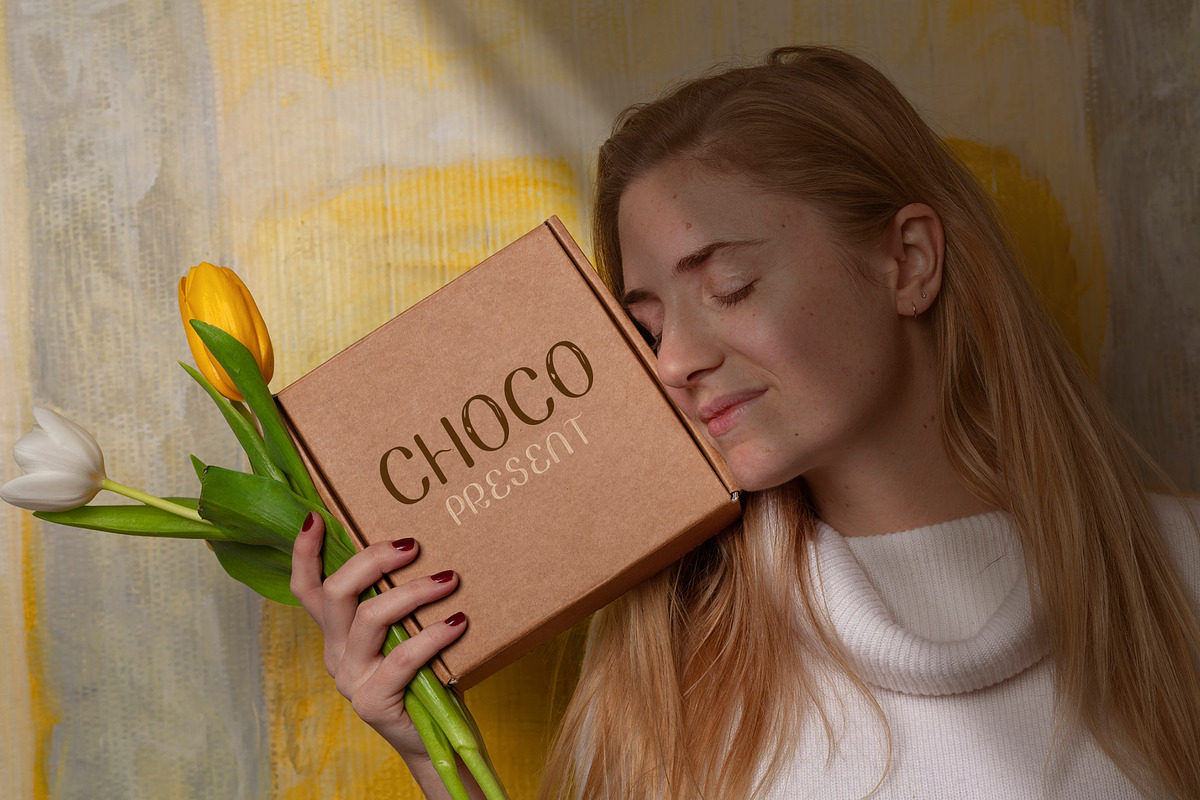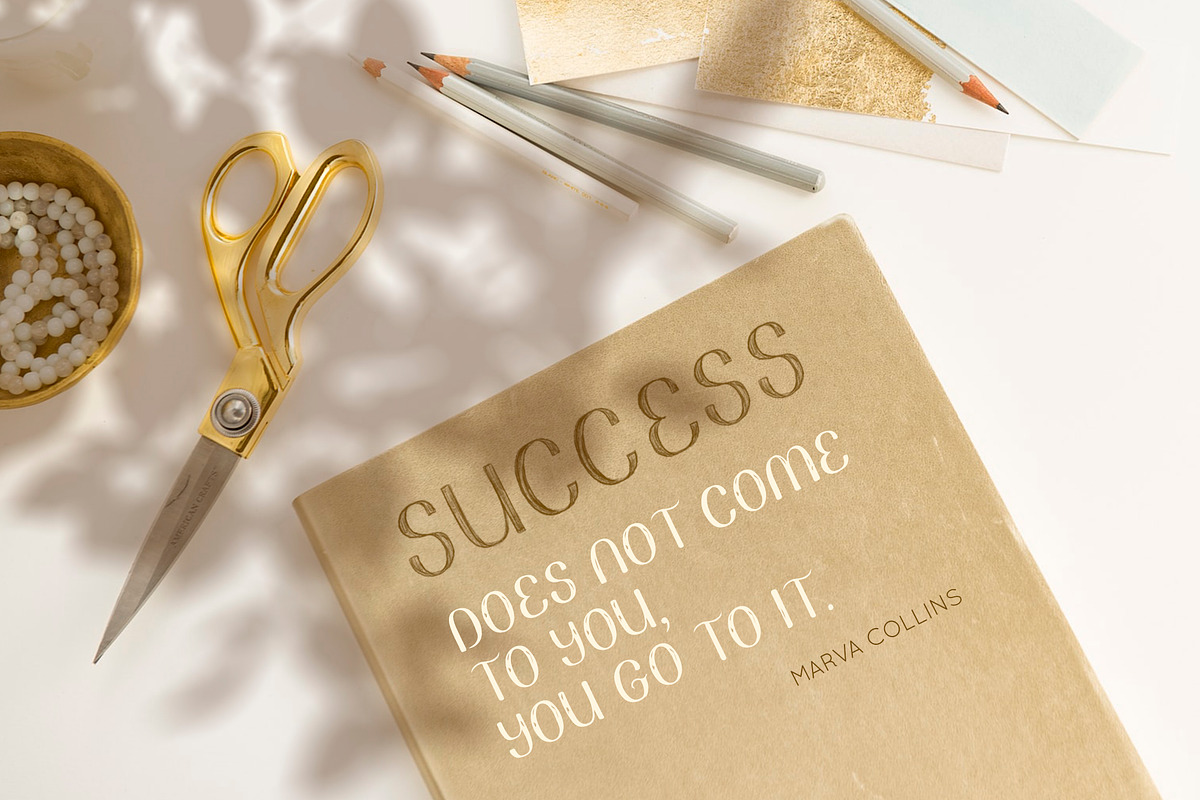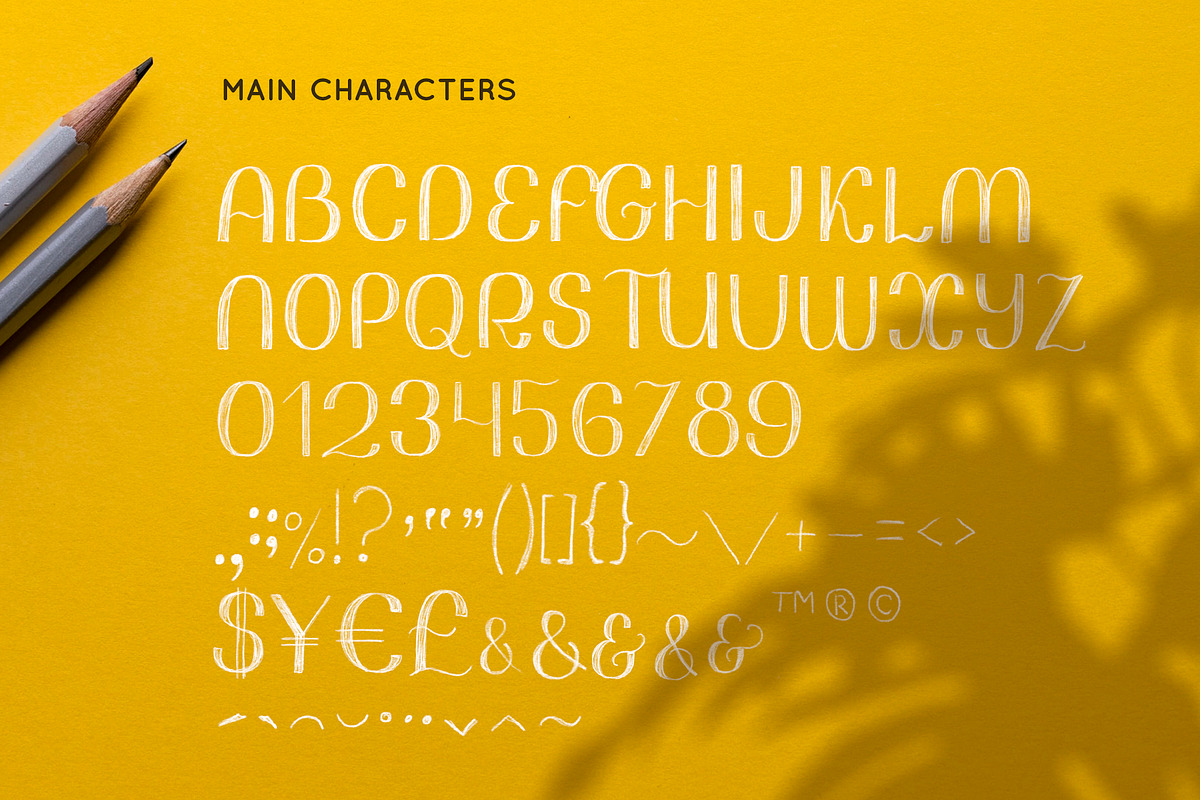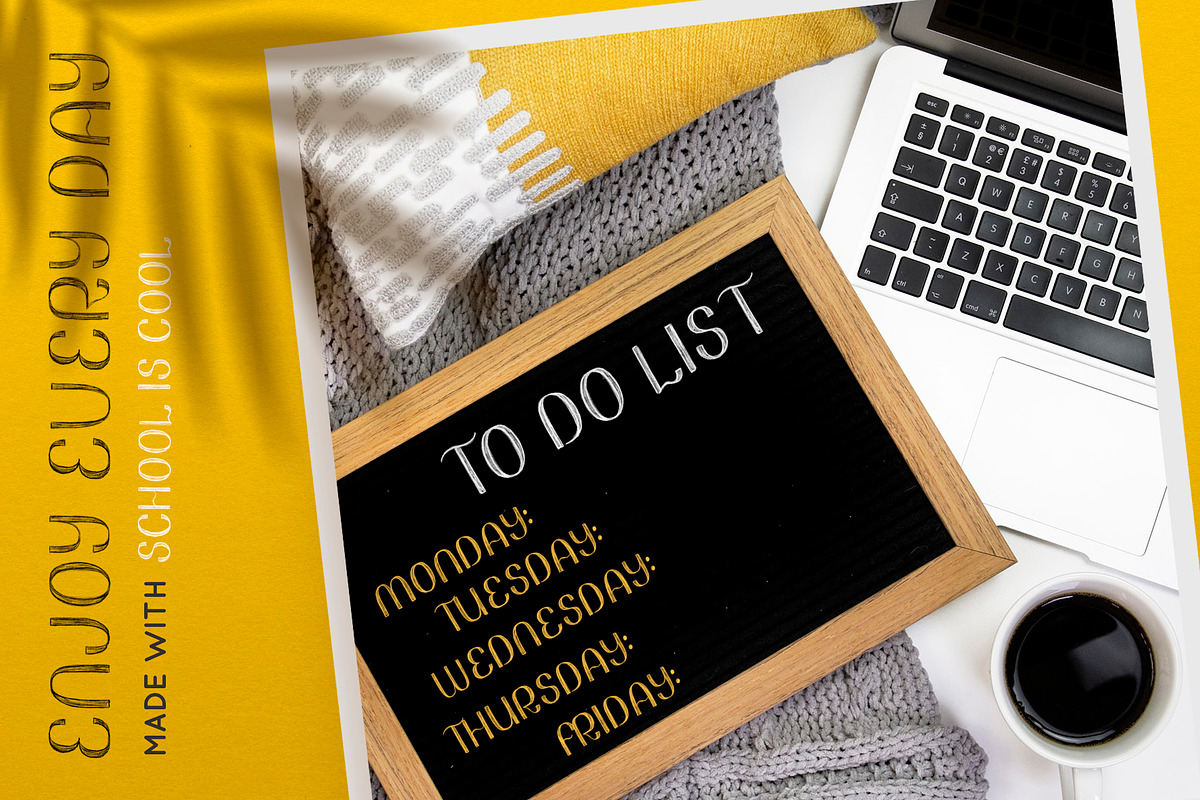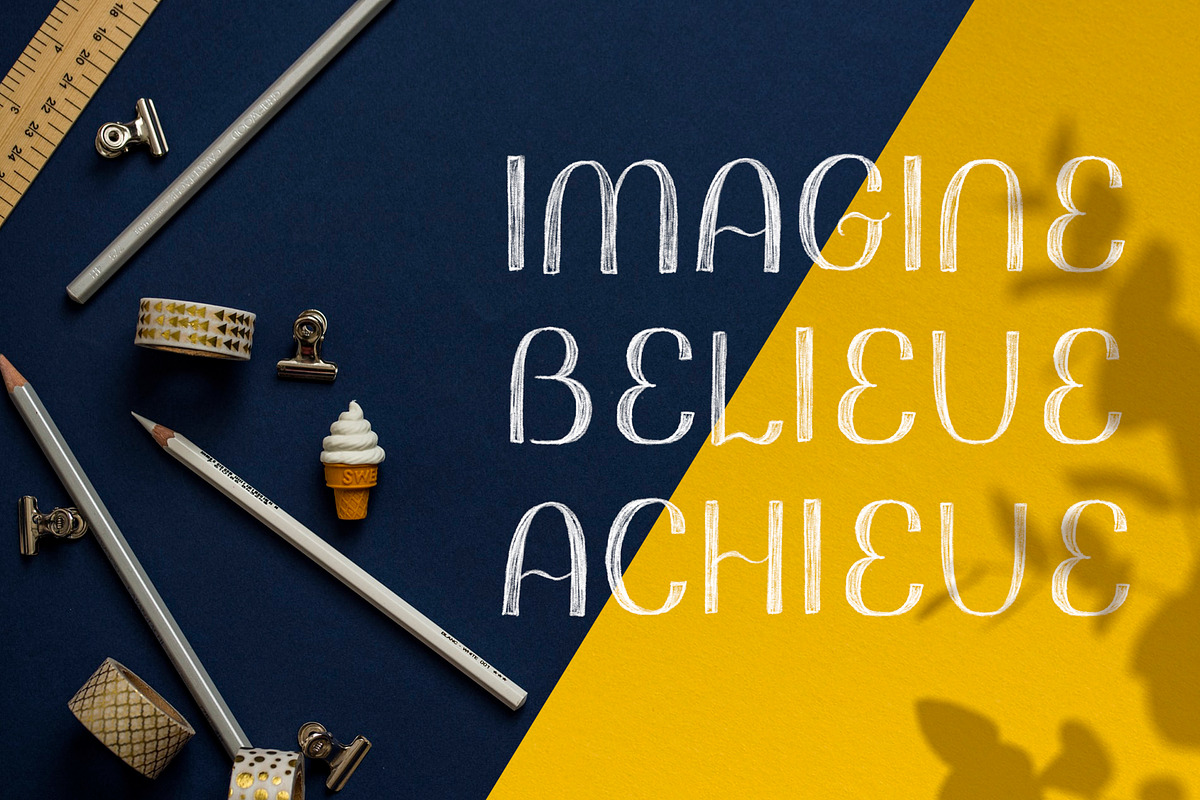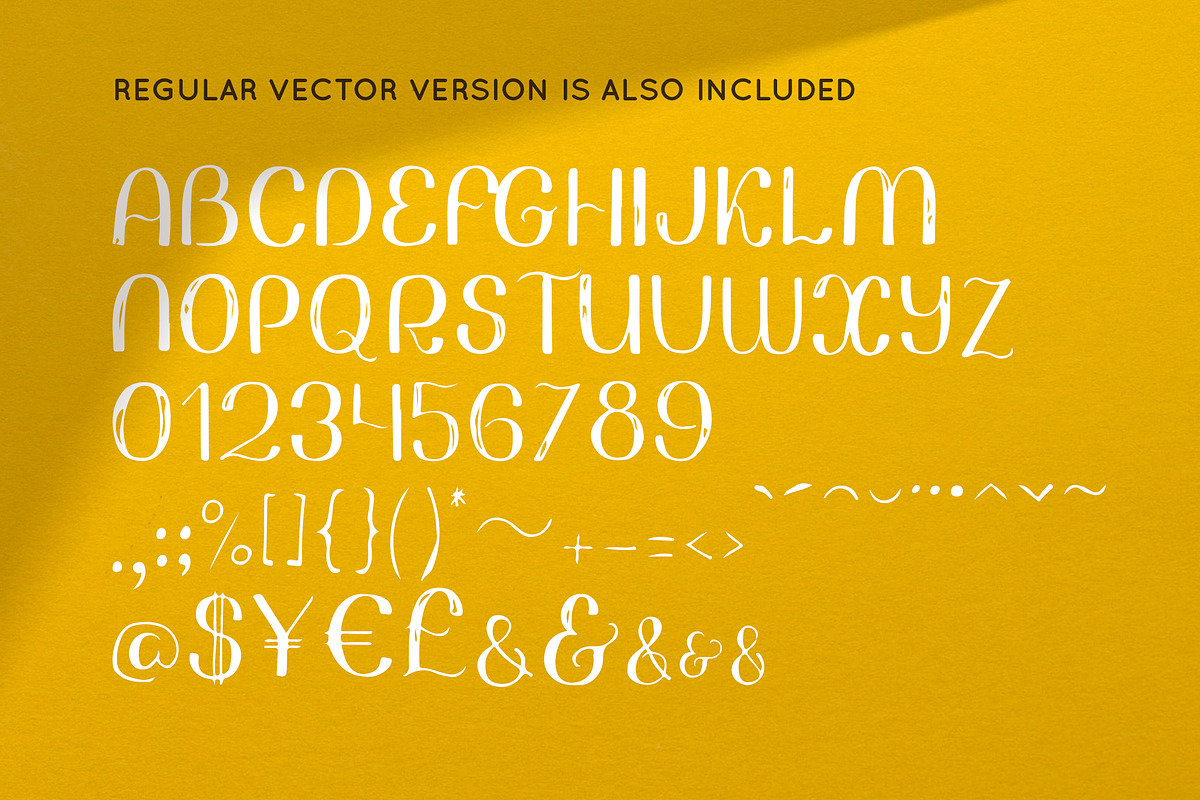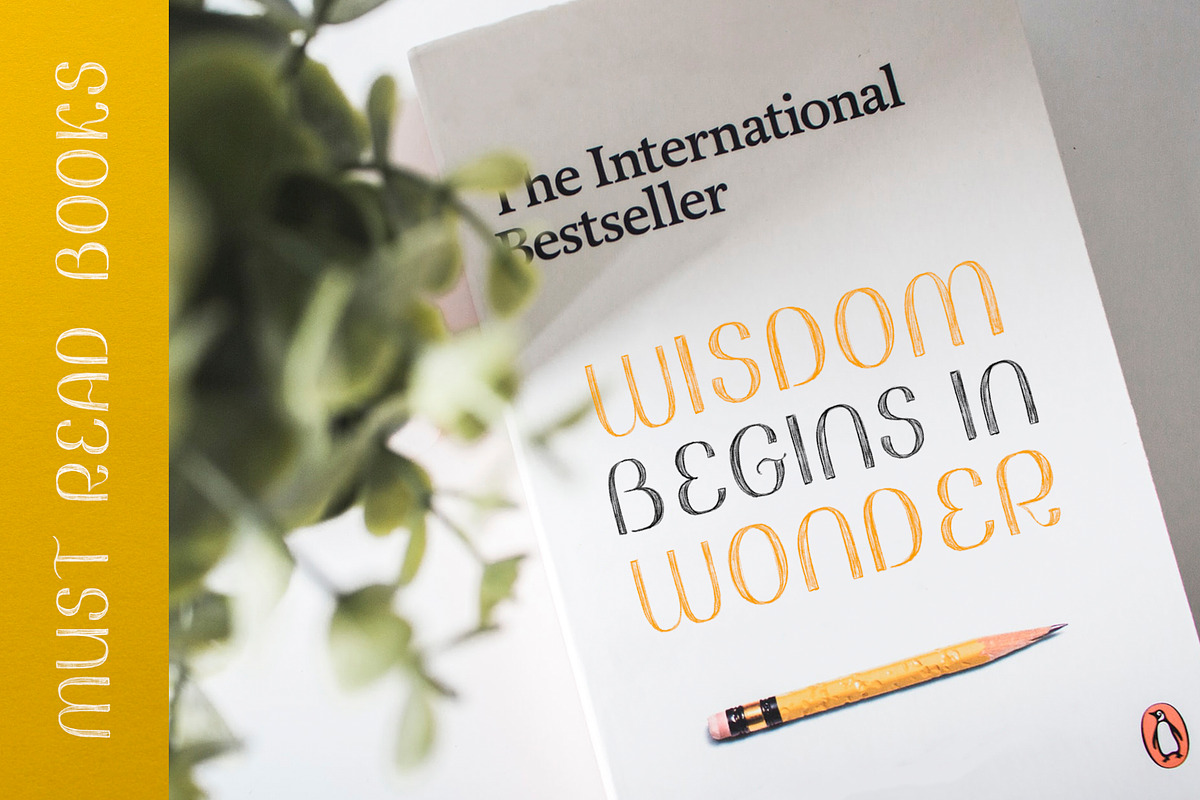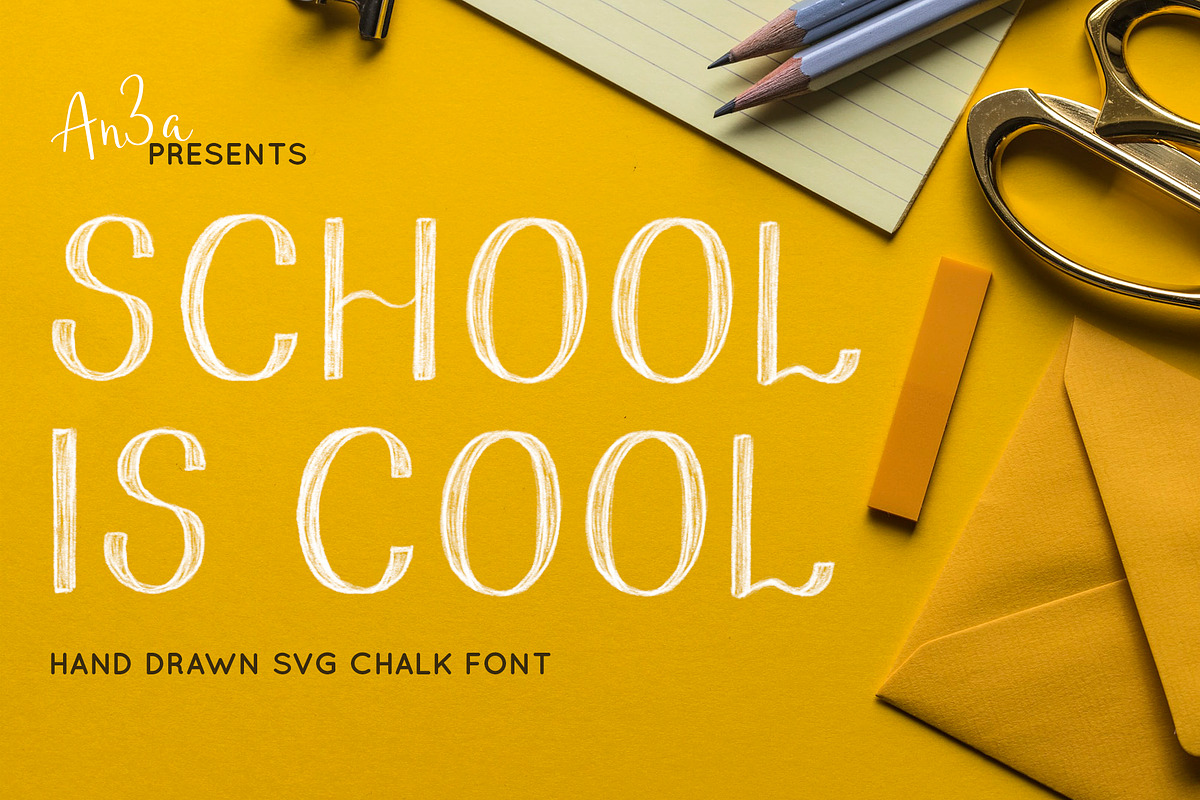
School SVG & solid vector font
Back to school season is coming! So don’t miss special offer of the week - School is cool SVG & solid vector font.
It includes Sans Serif SVG font (pencil textured) and Sans Serif solid vector version. Awesome decision for your branding, design and projects! School is cool font works great in mood boards, posters, logos, headlines, packaging, advertising, branding and so much more.
School is cool SVG font has a real hand-painted pencil look, ultra-textured and transparent letters with high-definition brush textures built in to the font as a transparency.
School is cool has uppercase letters, numbers & basic punctuation. This font currently only English supports, but the following accents are included: ¨ ˜ ´ ˆ ` ˚ ¸